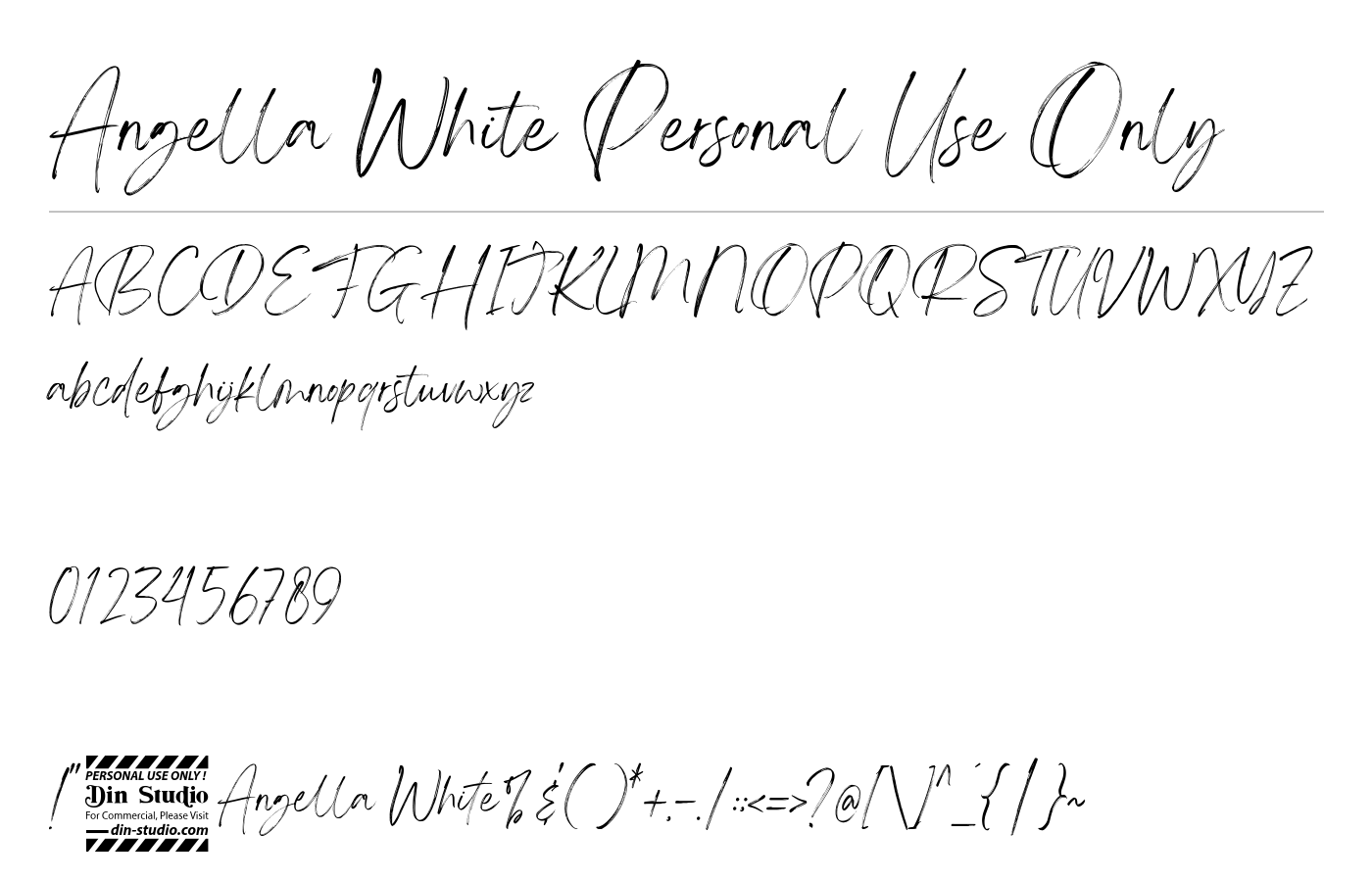
Angella White Personal Use Only is an elegant and delicate script font with a hand-drawn, brush-like quality. Its fine, flowing strokes and tall, narrow letterforms give it a graceful, personal feel perfect for adding a touch of sophistication and warmth to invitations, branding, and social media graphics. This font works best in decorative headlines or logos where a stylish, intimate vibe is desired.
Angella White Personal Use Only Font
About Angella White Personal Use Only Font